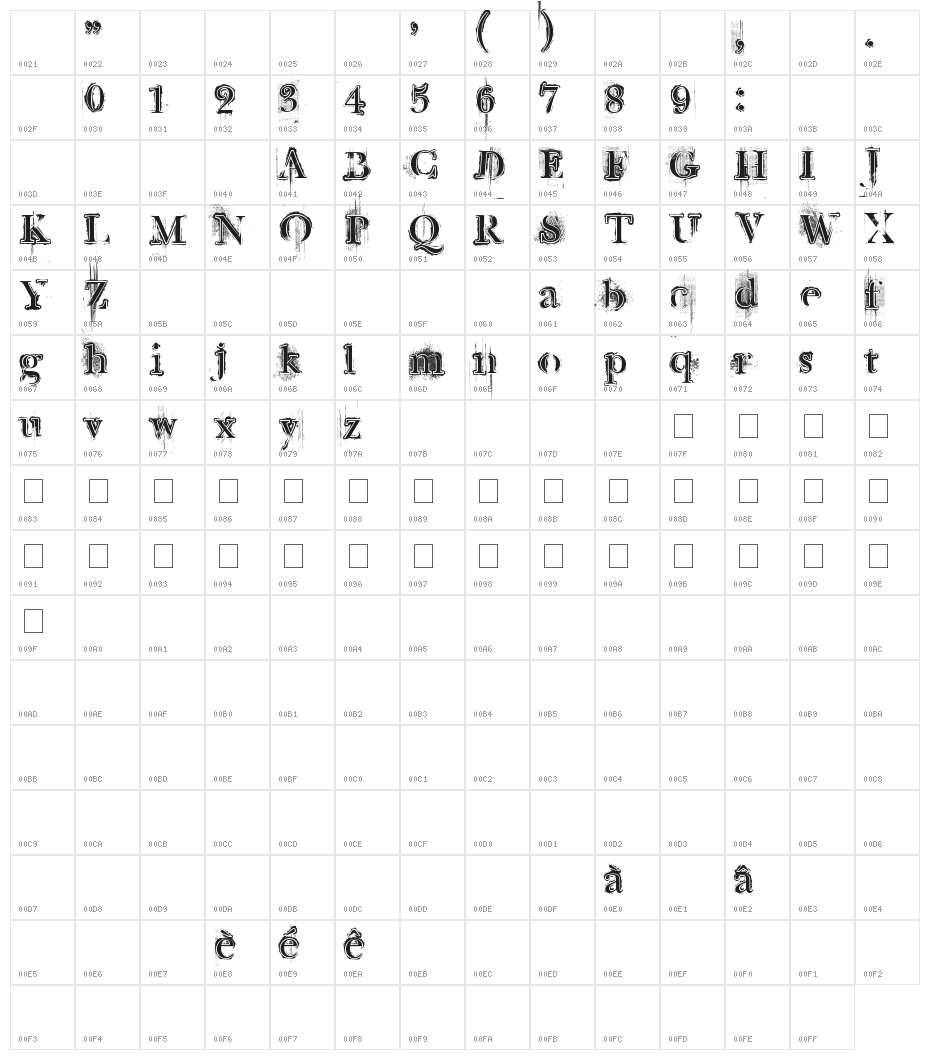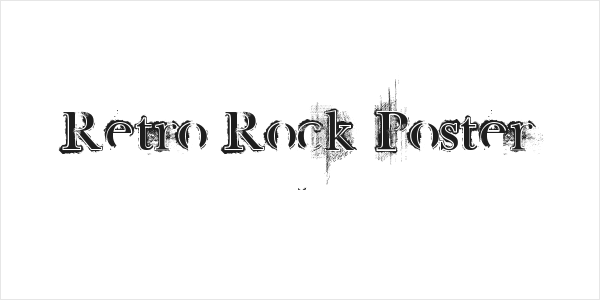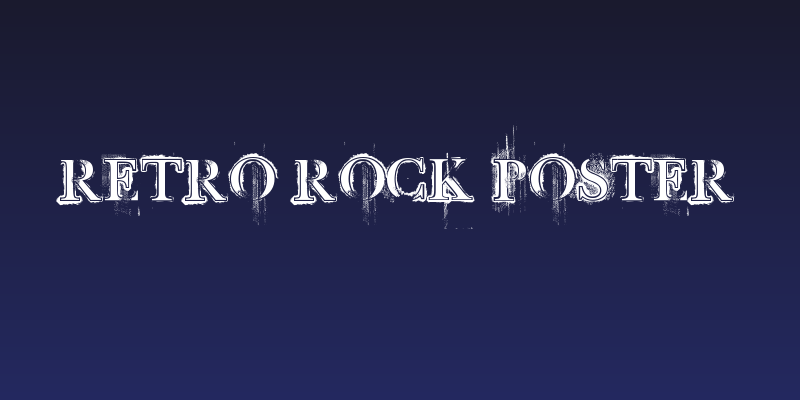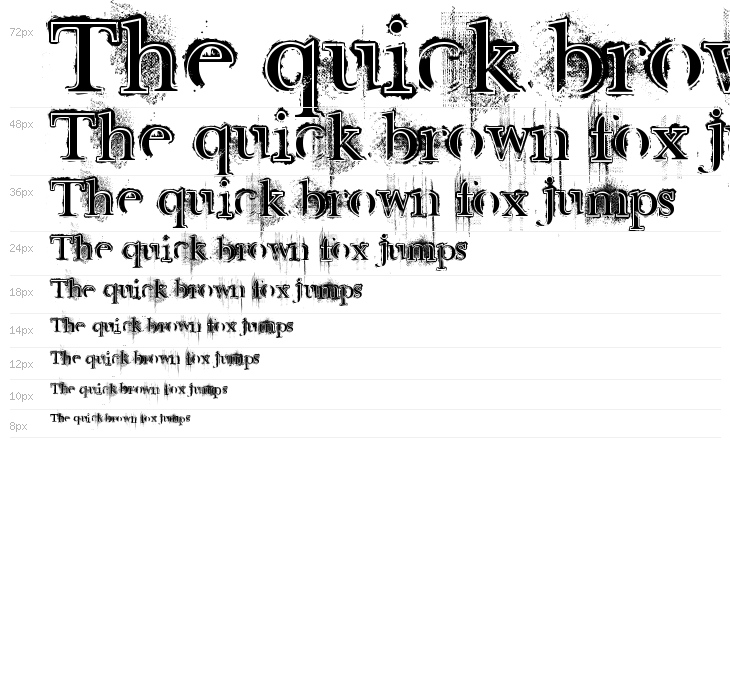
Retro Rock Poster Font
Retro Rock Poster Description
This font exudes a vintage, distressed aesthetic reminiscent of classic rock posters. The characters are bold and heavily stylized, featuring a rough, textured appearance that suggests wear and age. The uppercase and lowercase letters maintain a consistent style, with sharp serifs and a slightly condensed form. Numbers and special characters follow the same design, ensuring a cohesive look across all text. The font's unique character is enhanced by its high contrast in stroke thickness, creating a striking visual impact. This style is ideal for projects that aim to capture a retro or rebellious vibe, such as music event posters, album covers, or themed graphic designs.
| Proposed Projects | Ideal for music event posters, album covers, themed graphic designs, and retro branding. |